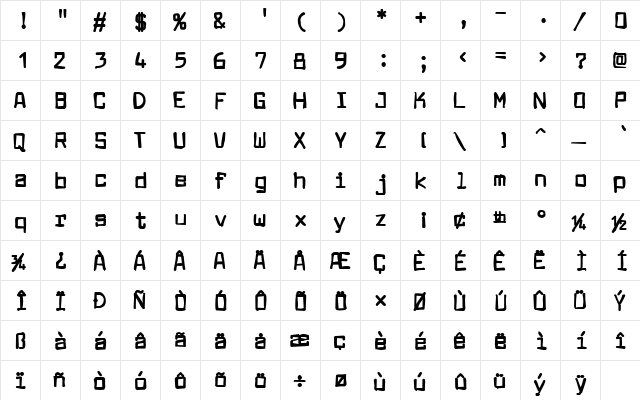
Larabiefont Ink Regular
Design Context for Larabiefont Ink Typeface
Larabiefont Ink takes a measured approach to typography — its balanced proportions and neutral character make it a reliable workhorse for both digital and print work.